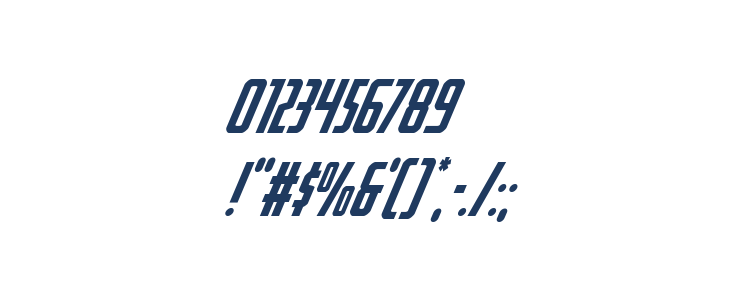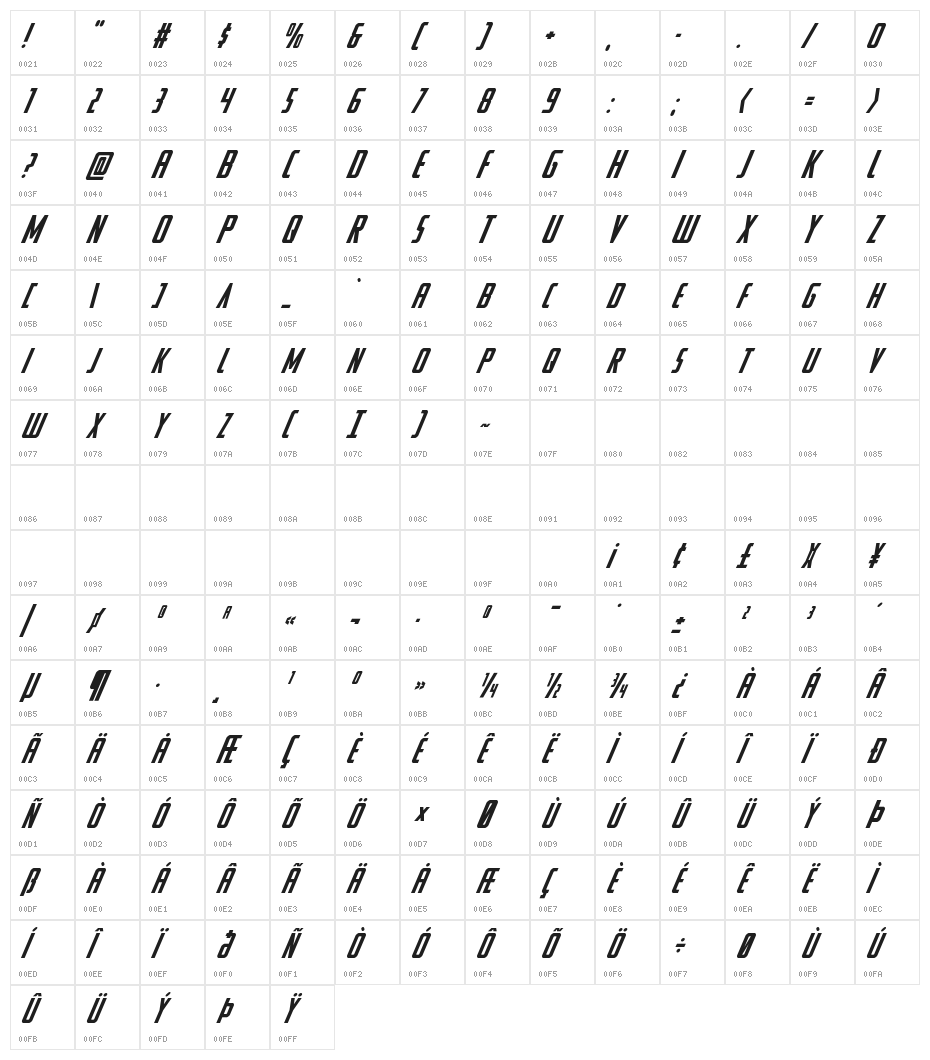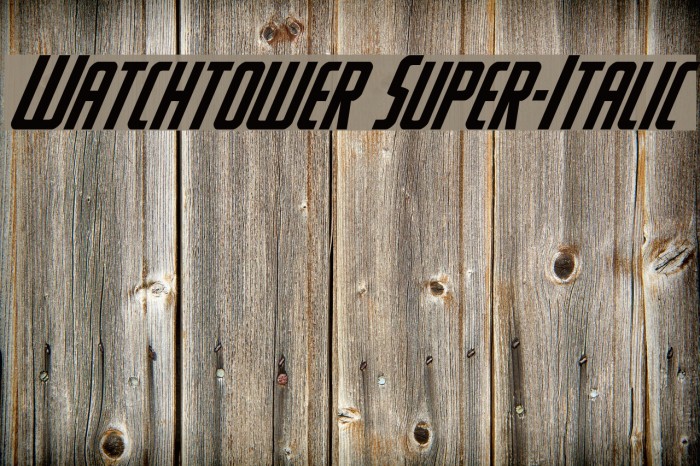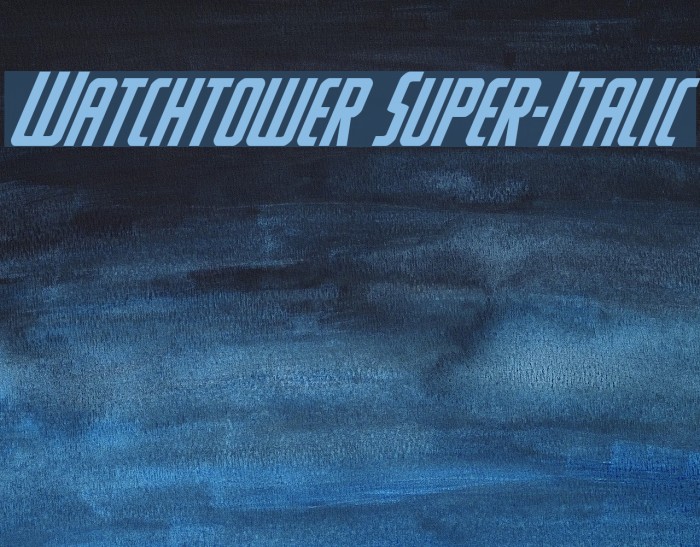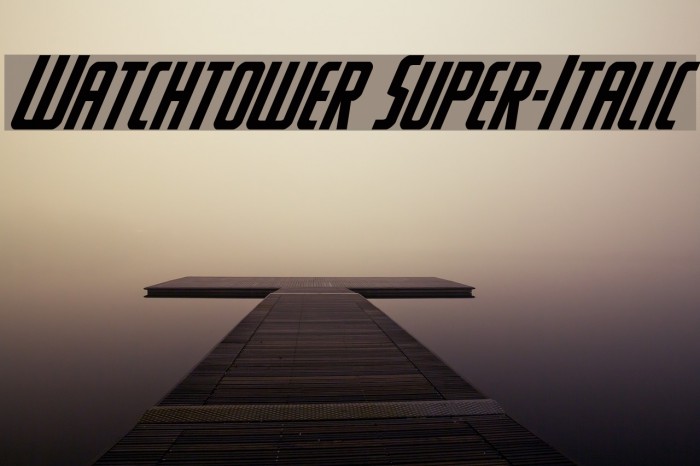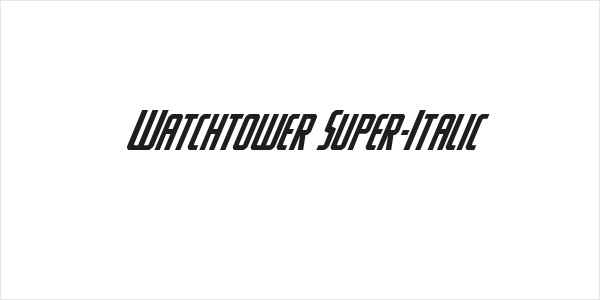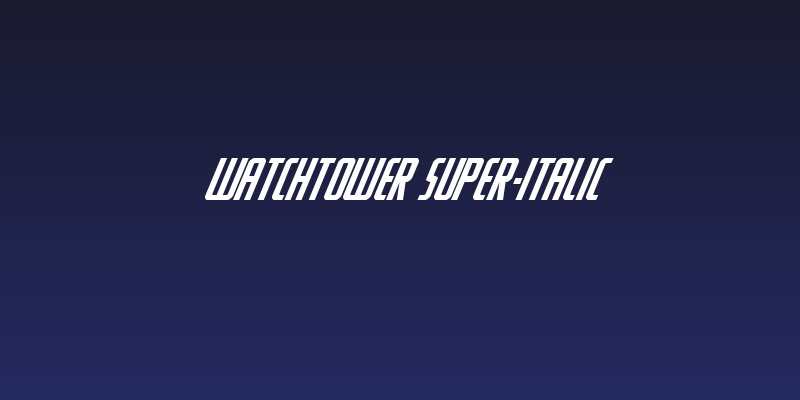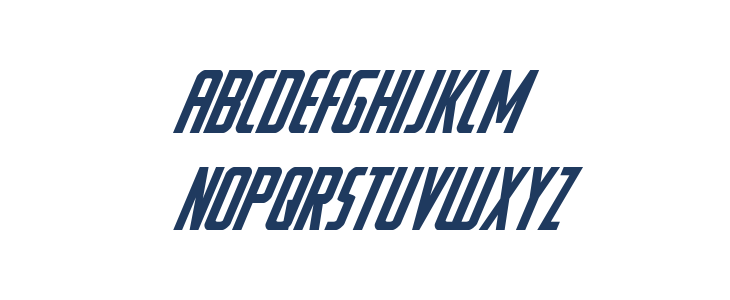
Watchtower Super-Italic Font
Watchtower Super-Italic Description
This font features a bold and dynamic style with a strong italic slant, giving it a sense of motion and energy. The characters are tightly spaced, enhancing its compact and impactful appearance. The strokes are thick and consistent, providing a high contrast that makes the letters stand out prominently. Its angular design and sharp edges contribute to a modern and edgy aesthetic, making it suitable for attention-grabbing headlines and titles.
| Proposed Projects | Ideal for sports branding, dynamic posters, modern advertising, and eye-catching headlines. |